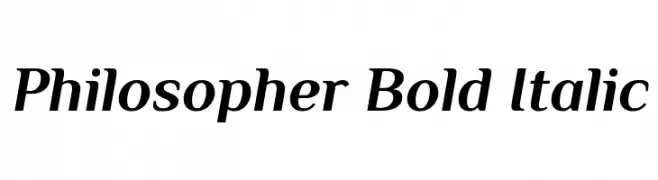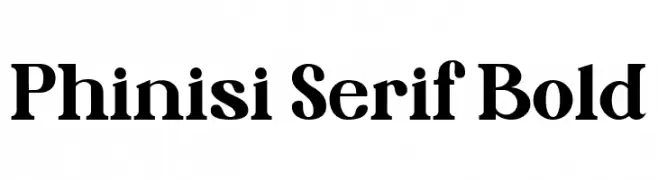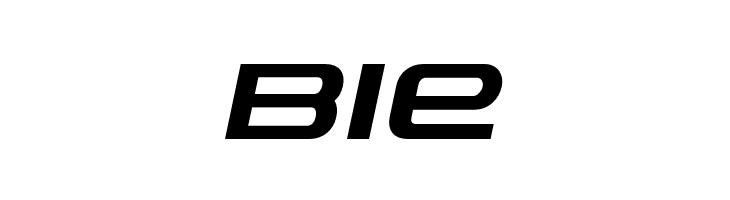
A bold, italicized font with a modern, geometric style.
A bold, modern font with wide characters and a strong presence.
A bold, italicized font with a dynamic and modern style.
A bold, modern sans-serif font with clean lines and uniform stroke width.
A playful, modern font with rounded edges and a hand-drawn feel.
A bold serif font with strong, elegant strokes and classic appeal.
A bold serif font with a classic and authoritative style.
A bold, italic serif font with a classic and dynamic style.
A bold, italic serif font with a dynamic and elegant style.
A bold serif font with strong, angular serifs and a classic yet modern appeal.